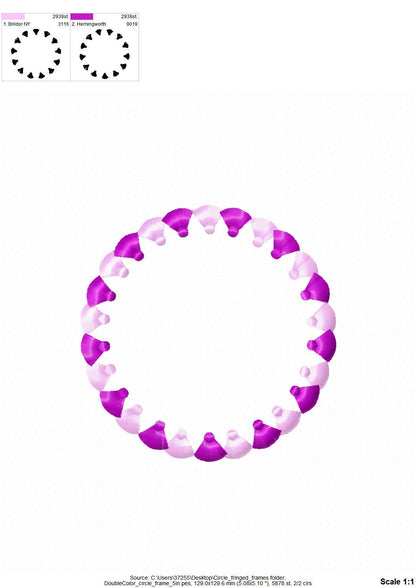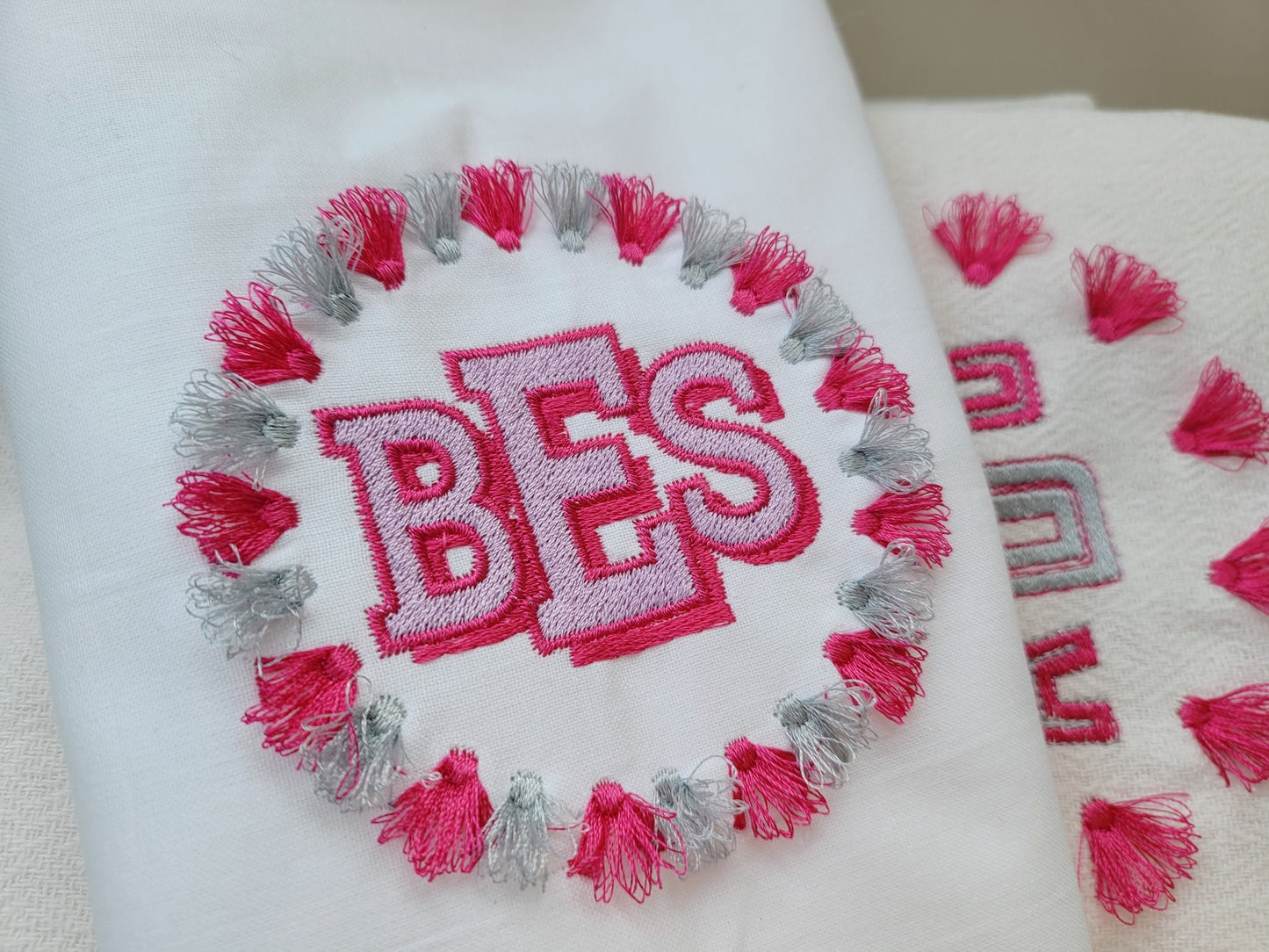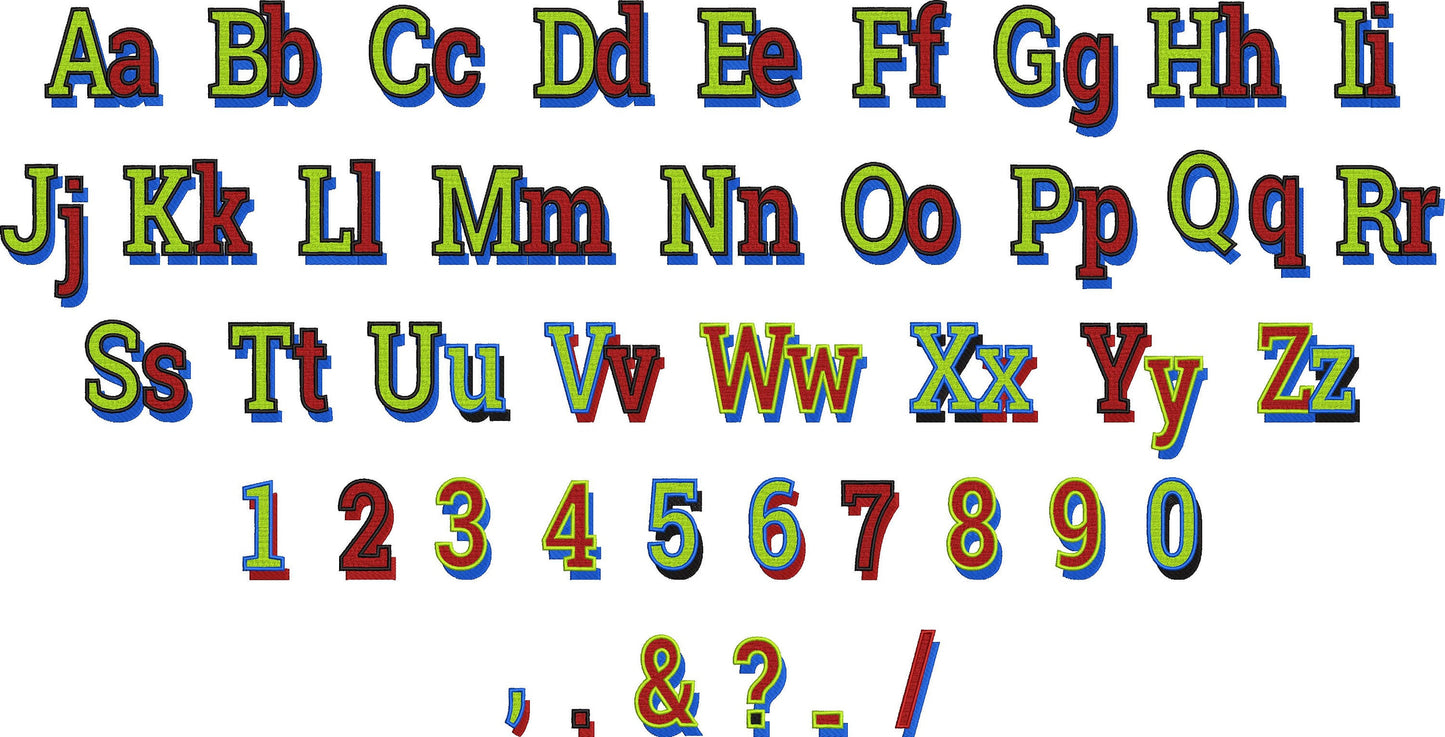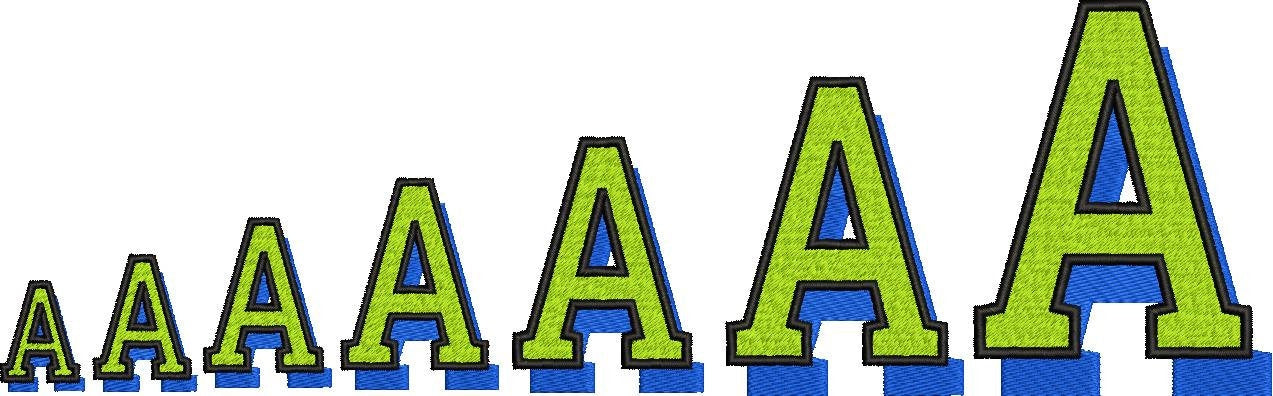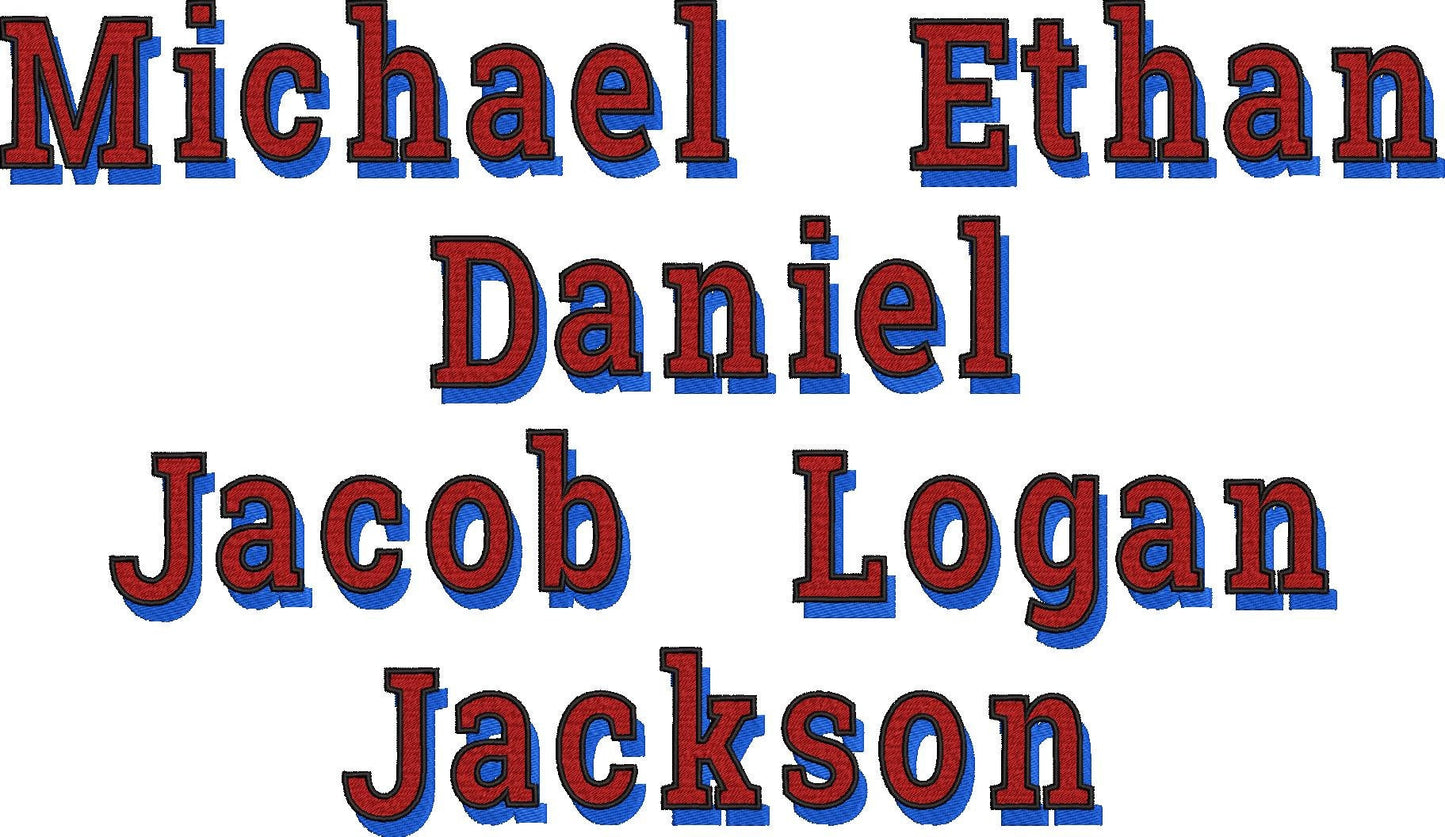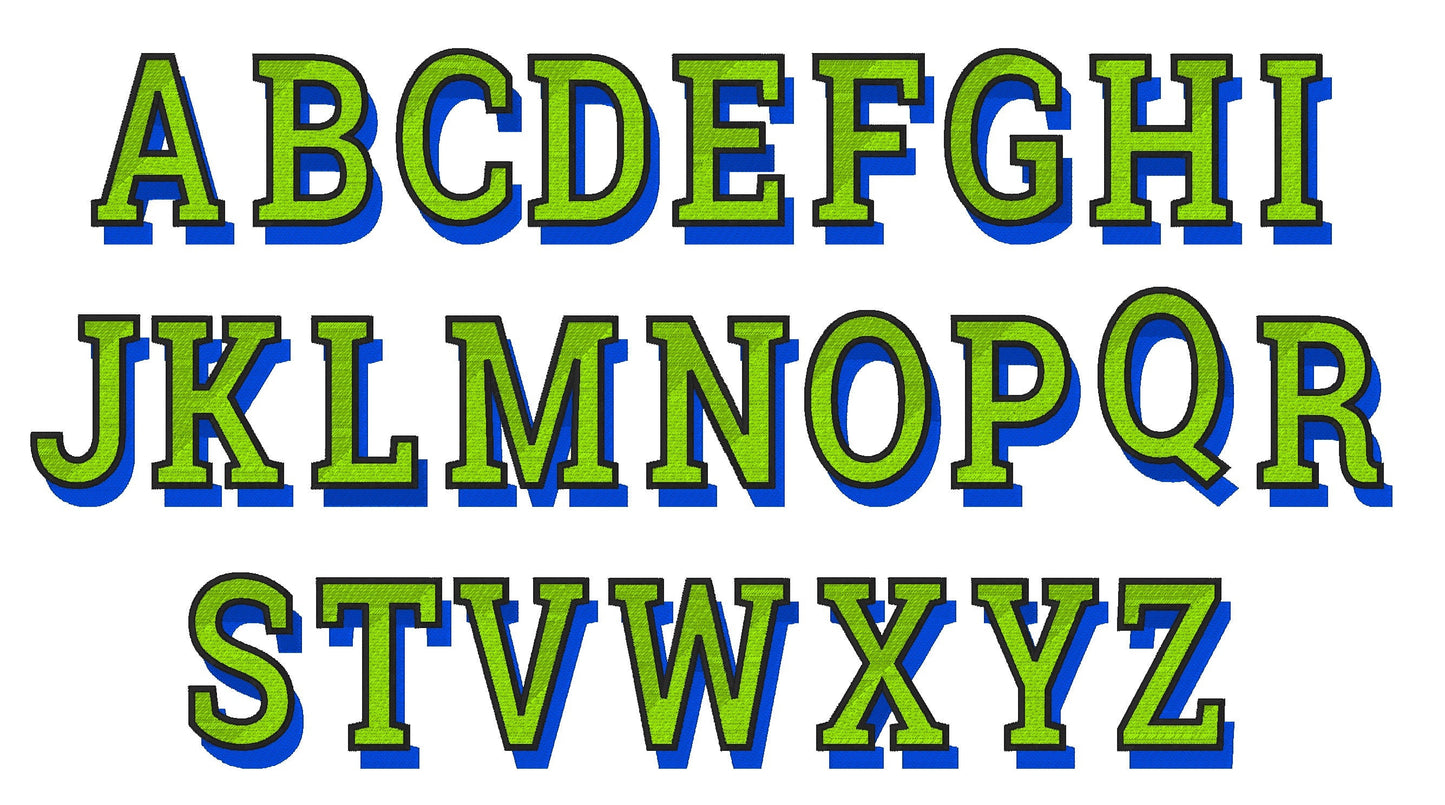
Summer Set Shadow Font and Monogram Frame
Sizes (inches): 3", 4", 4.5", 5"
Font Sizes (inches): 1.3", 1.6", 1.8", 2", 2.5", 3.5", 4.1"
Or click to open the linkA summer monogram set: a two-color fringed tassel circle frame and a matching shadow alphabet. Cute for kids' initials, bags, towels and gifts.
The monogram font has uppercase and lowercase letters, numbers 0 to 9 and punctuation, in seven sizes: 1.3, 1.6, 1.8, 2, 2.5, 3.5 and 4.1 inches, fill stitched with a shadow and outline in a second color. The fringed frame comes in 3, 4, 4.5 and 5 inches, and the fringe stays safe to wash.
- Two-color fringed tassel circle frame, 3 to 5 in
- Shadow monogram font: uppercase and lowercase, numbers 0-9, punctuation
- 7 letter sizes, 1.3 to 4.1 in